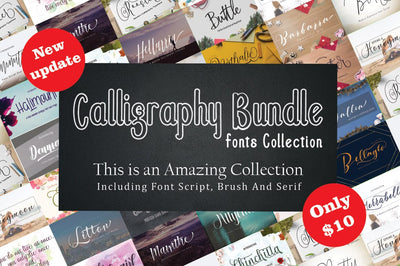
Collection of Calligraphy Fonts Collection. New update!
Collection of Calligraphy Fonts Collection.
hand drawn fonts in the round of amazing offers. Blending classic with modern, this stunning brush font is perfect for everything from wedding invitations to logos to T-shirts! It includes many OpenType features such as swipes, Initial and Terminal Forms, and standard binders, and the possibilities are endless.
With a wide range of OpenType features including Standard Ligatures, Alternate Styles, and Style Sets, your latest project will really stand out in a completely natural and elegant script style.